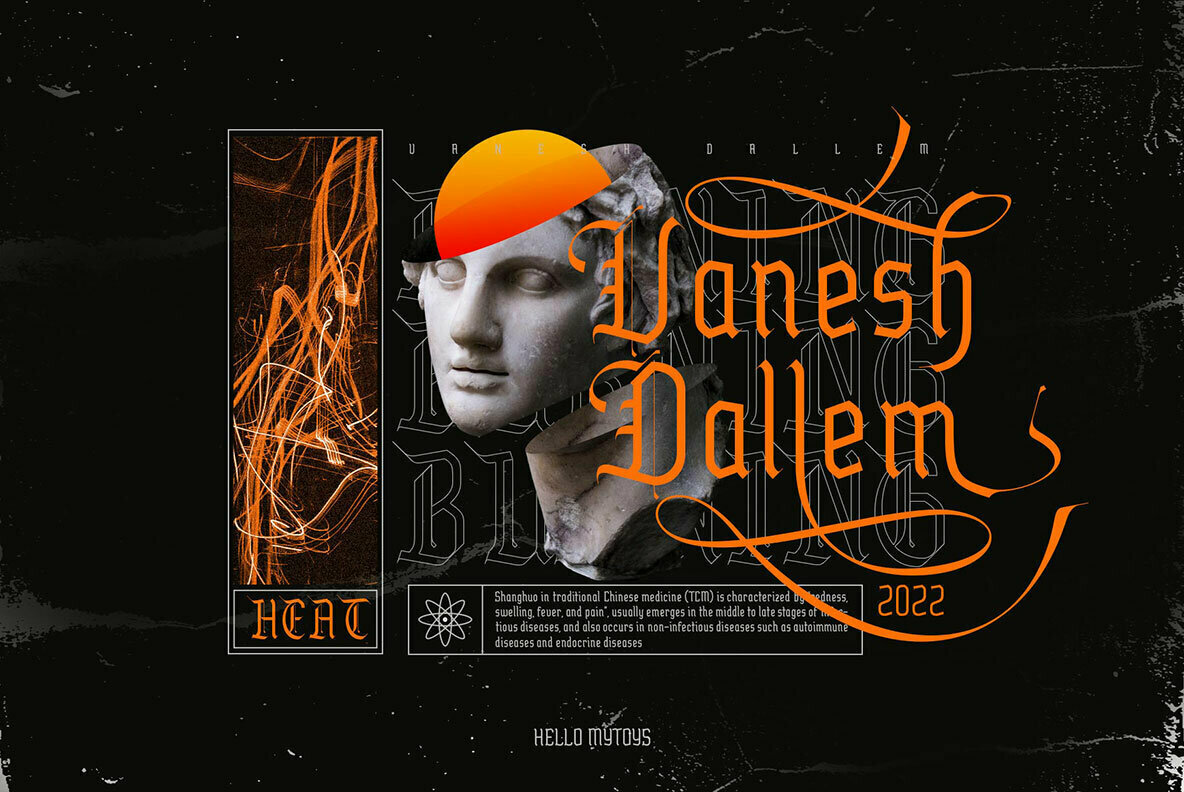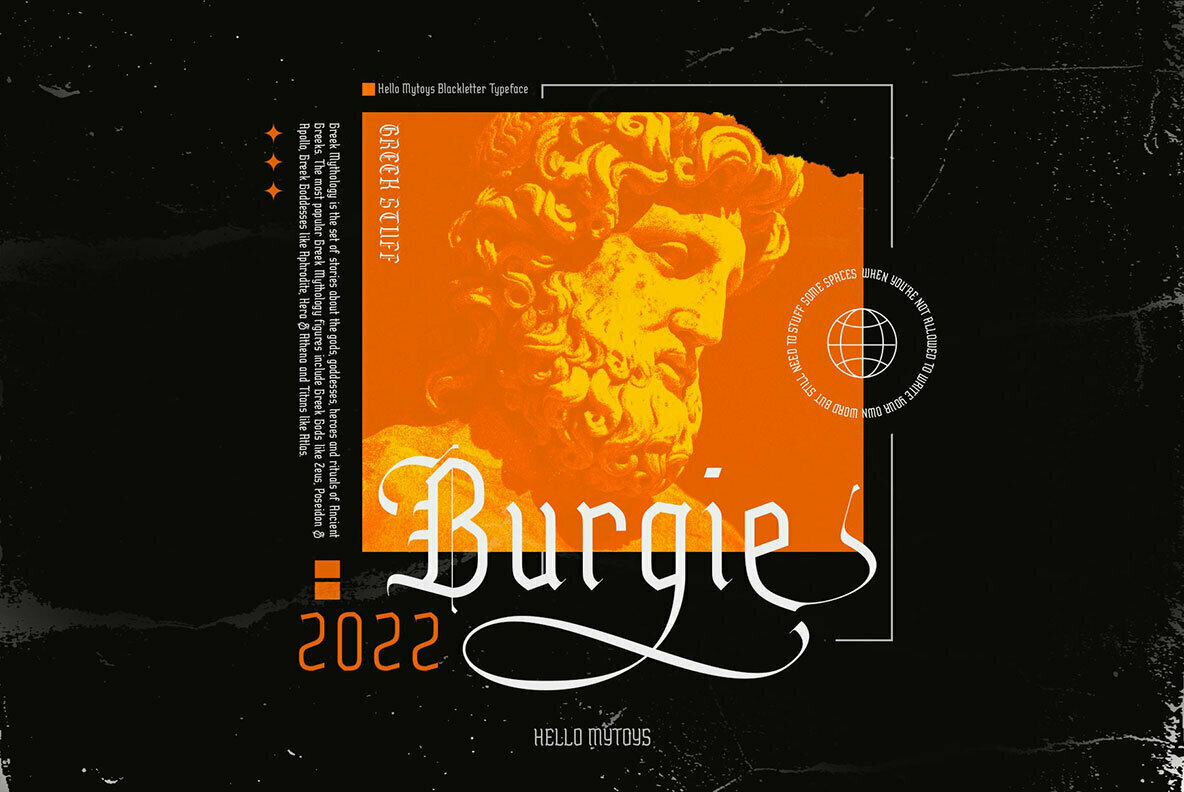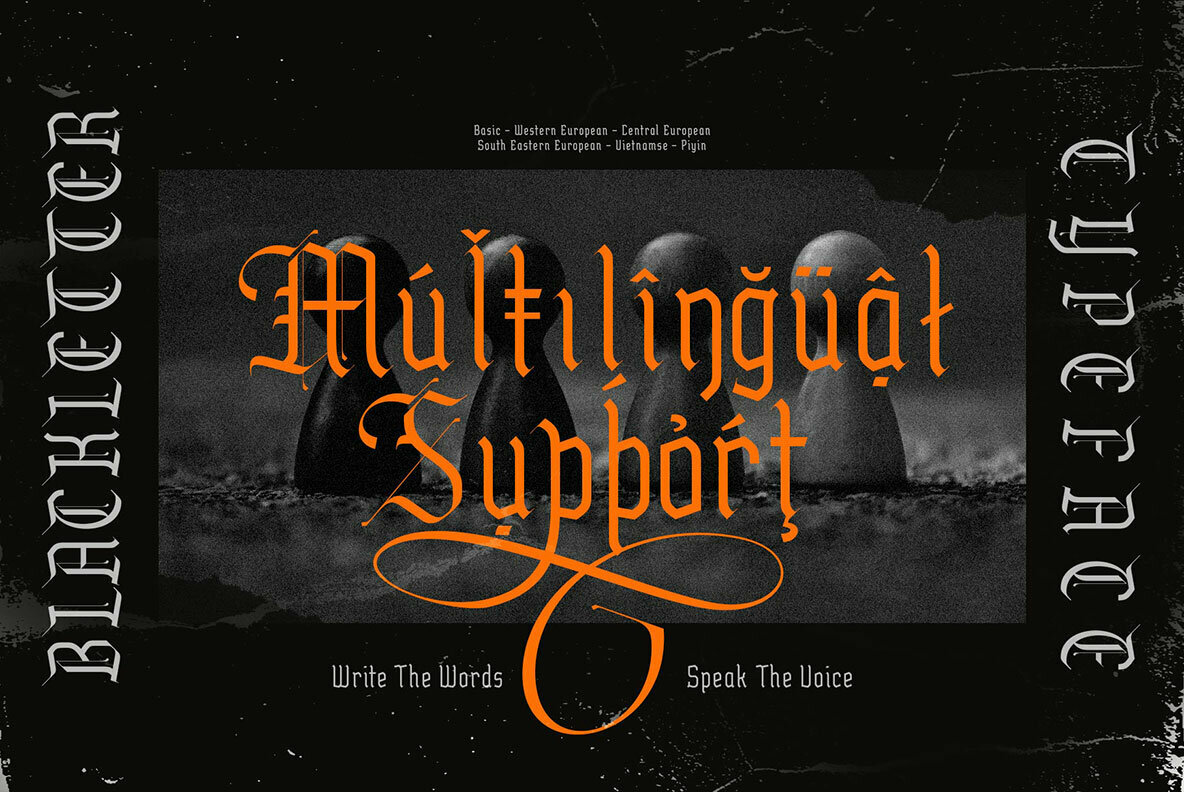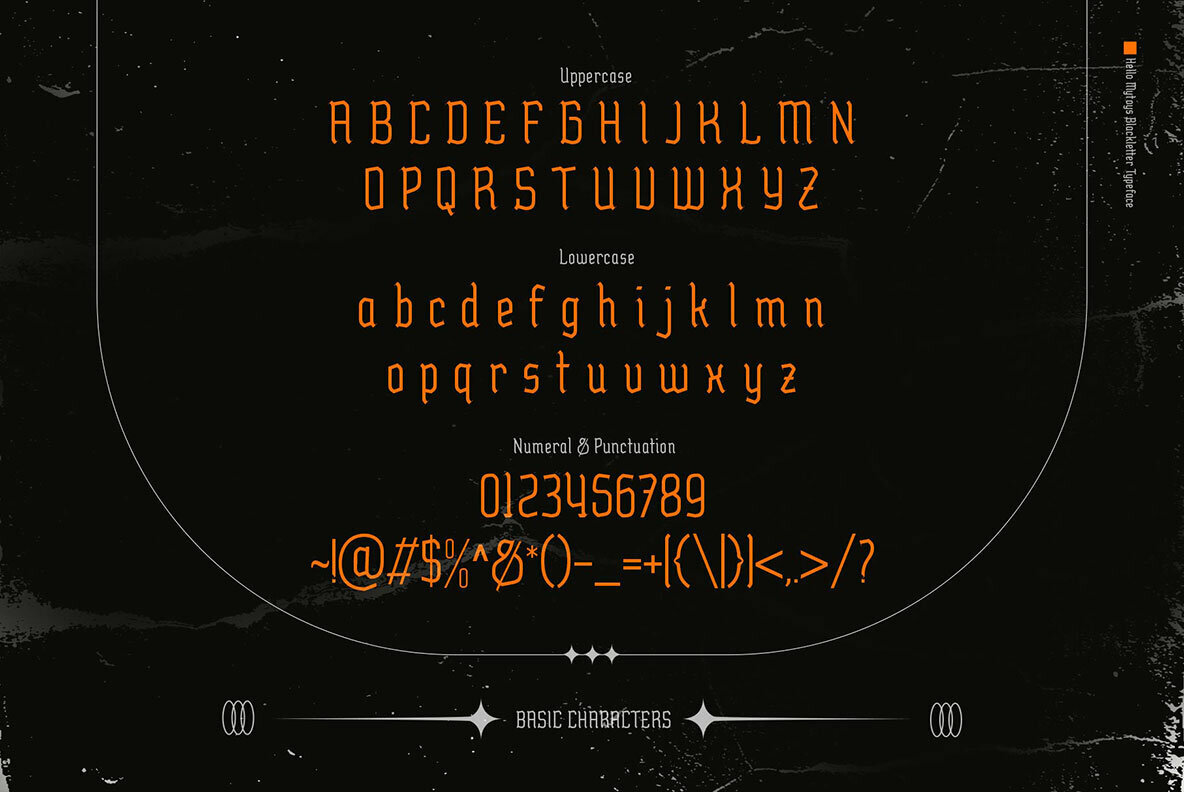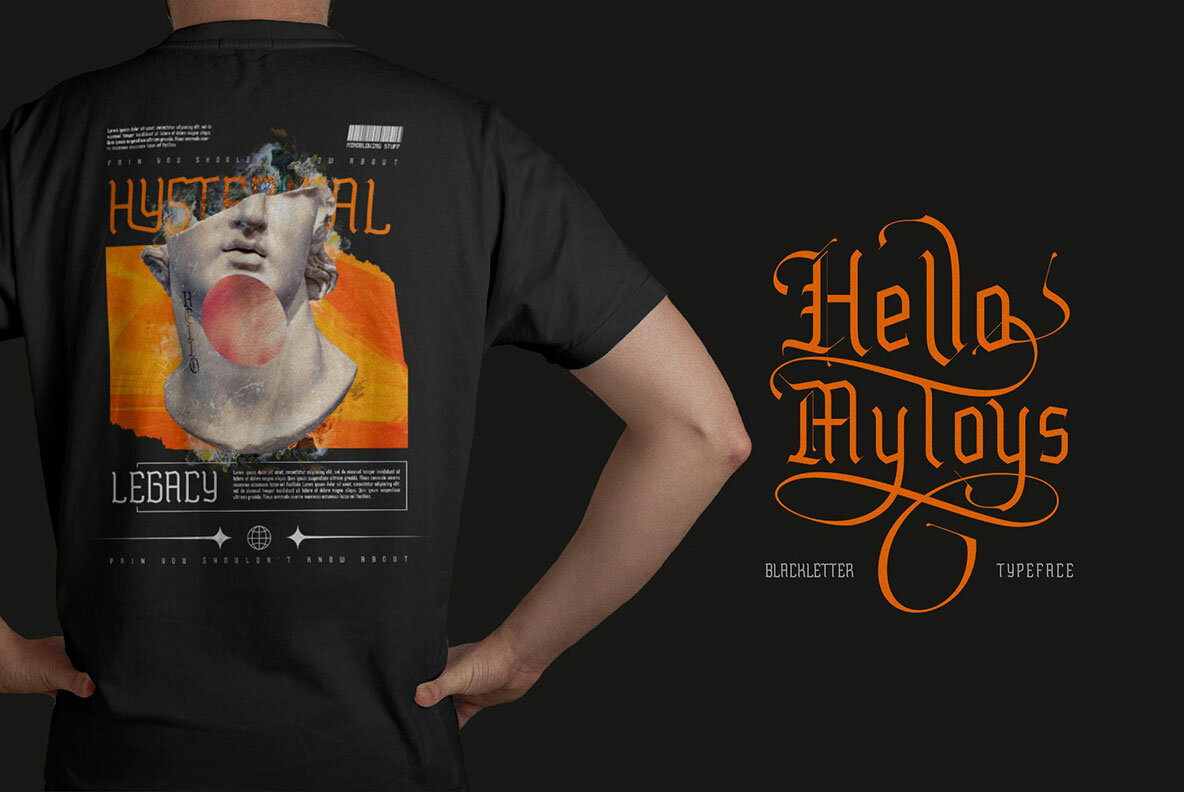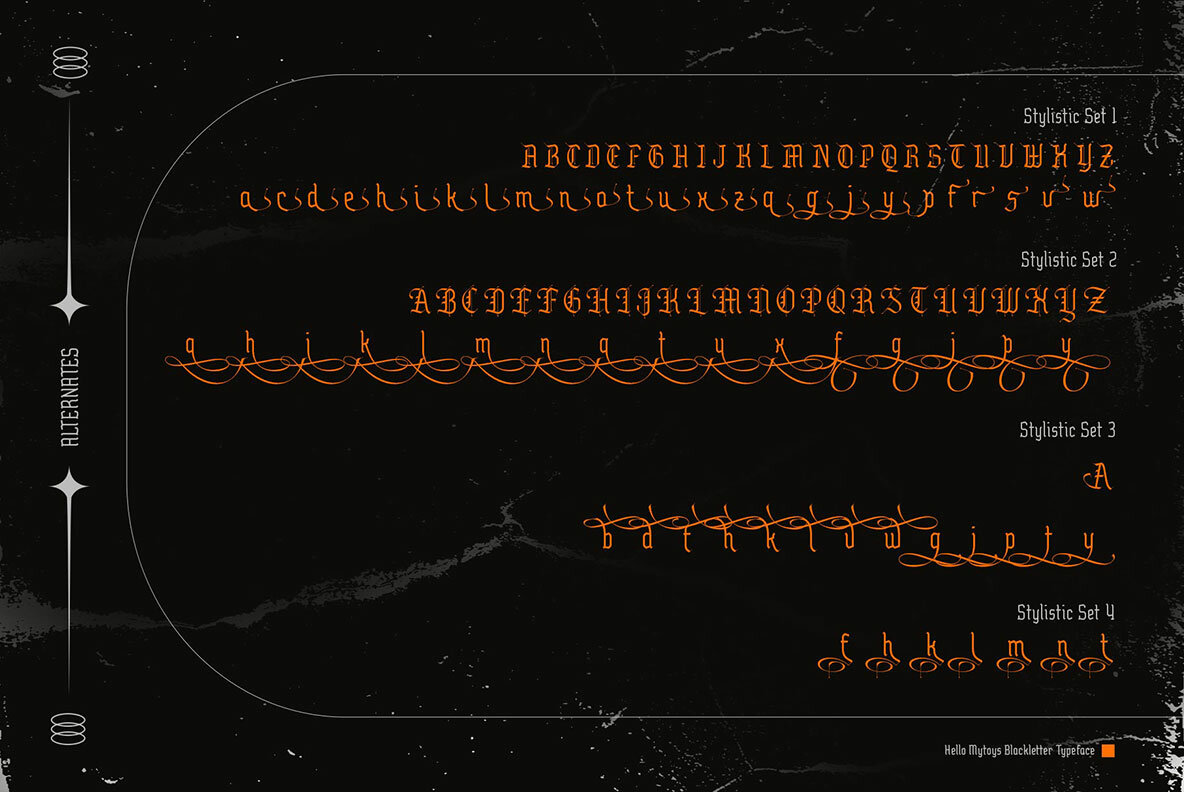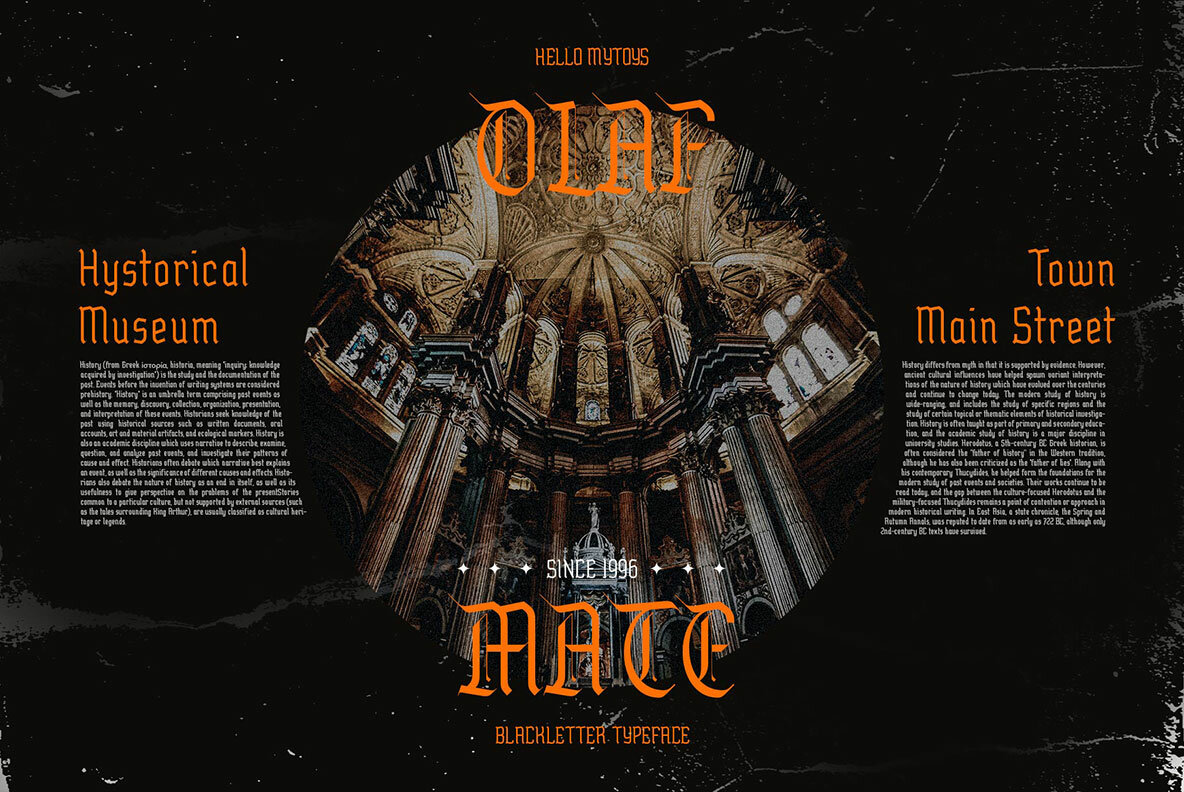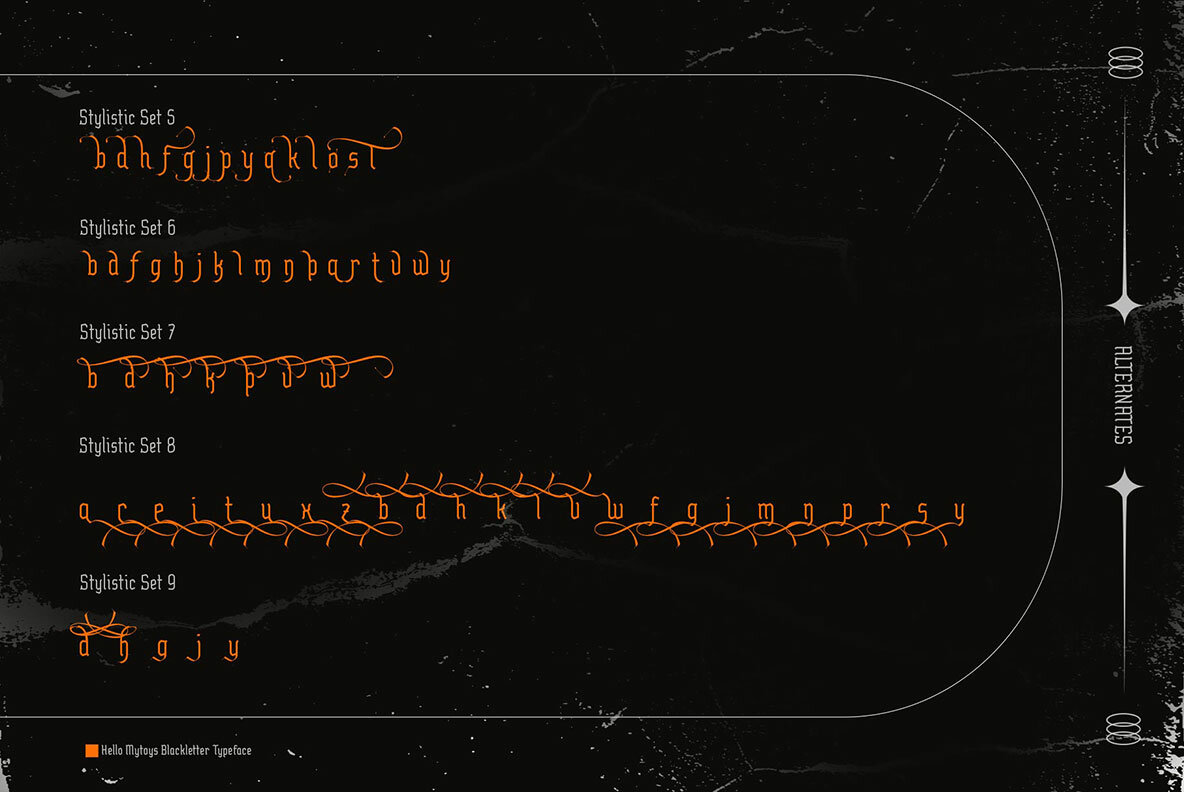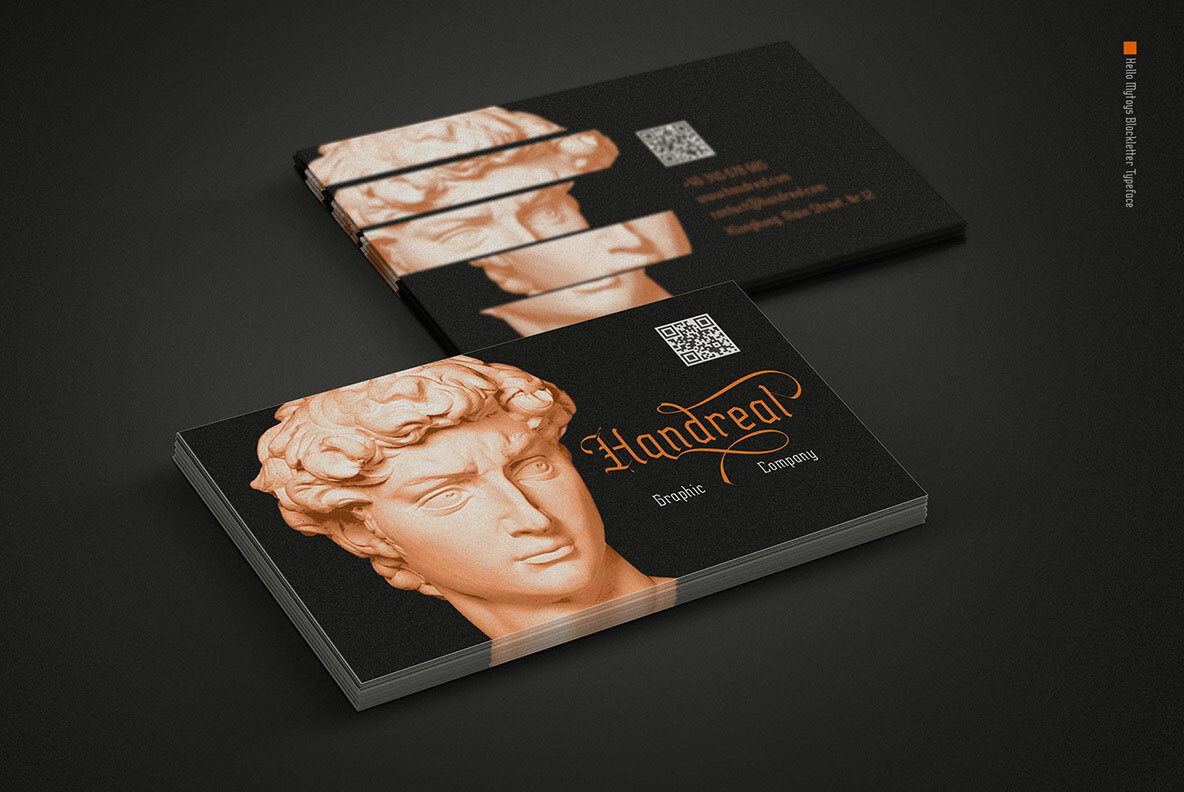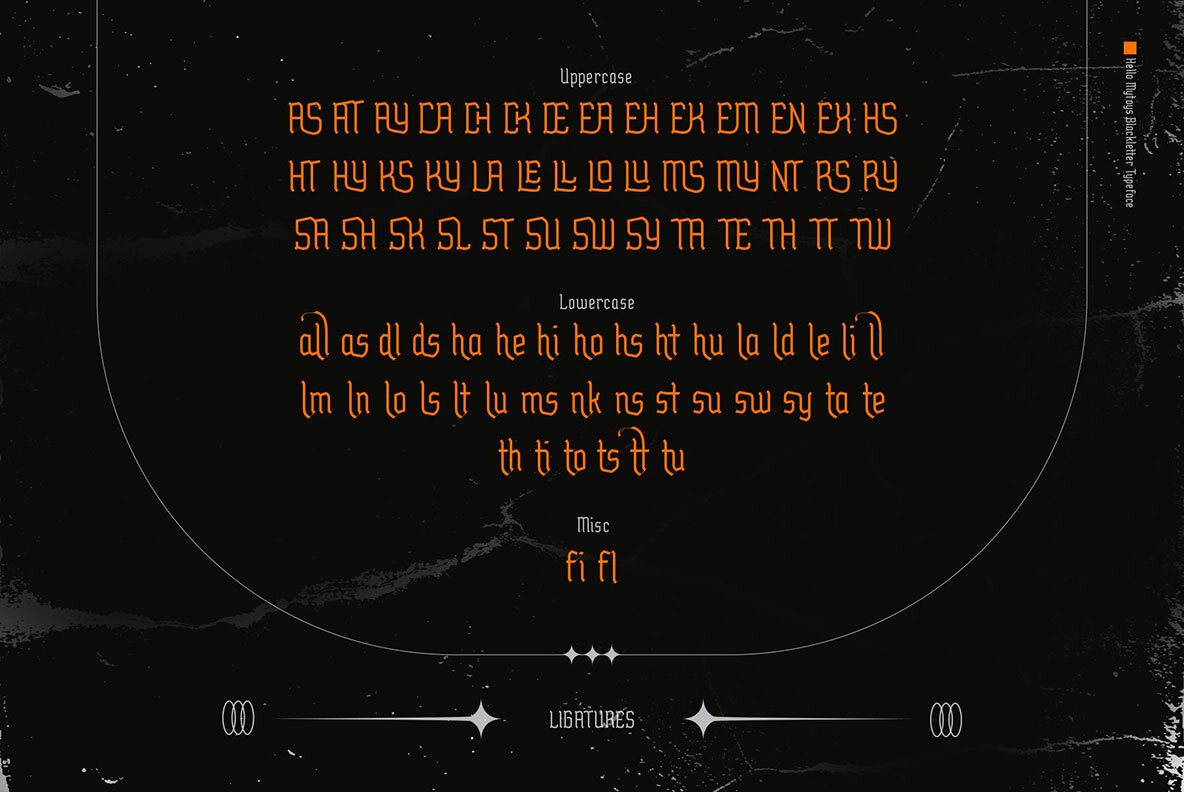
Hello Mytoys Font
Hello Mytoys Regular
️Hello Mytoys️ is a font inspired by the Blackletter typeface, made with a modern impression but still looks strong and unique. Supported by alternative options such as swash, ligature and alternative characters, making The Hello Mytoys Blackletter very easy to create designs with strong or dark themes. In addition, The Hello Mytoys Blackletter is also supported with multilingual characters that can be used in several international languages.
The Hello Mytoys Blackletter is very suitable for use in making music album cover designs, tattoo logos, wishkey labels, packaging pomades and so on which are made with dark and strong concepts.